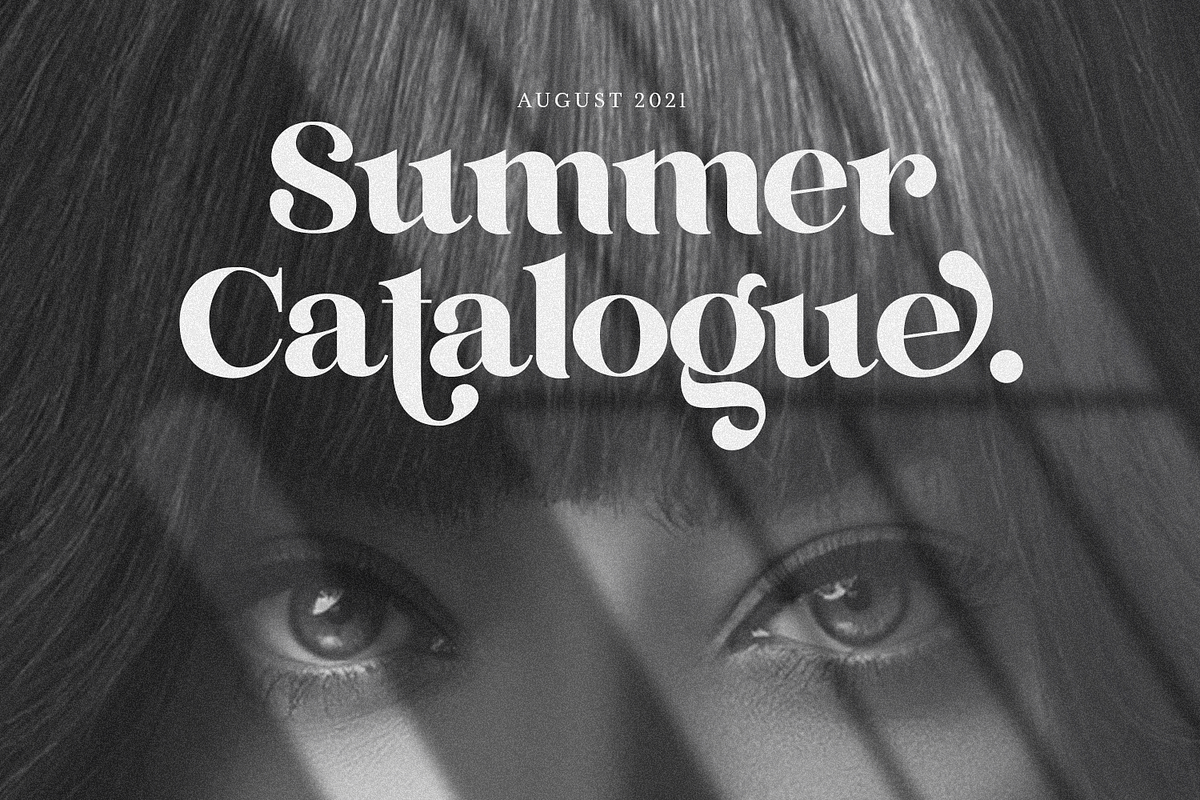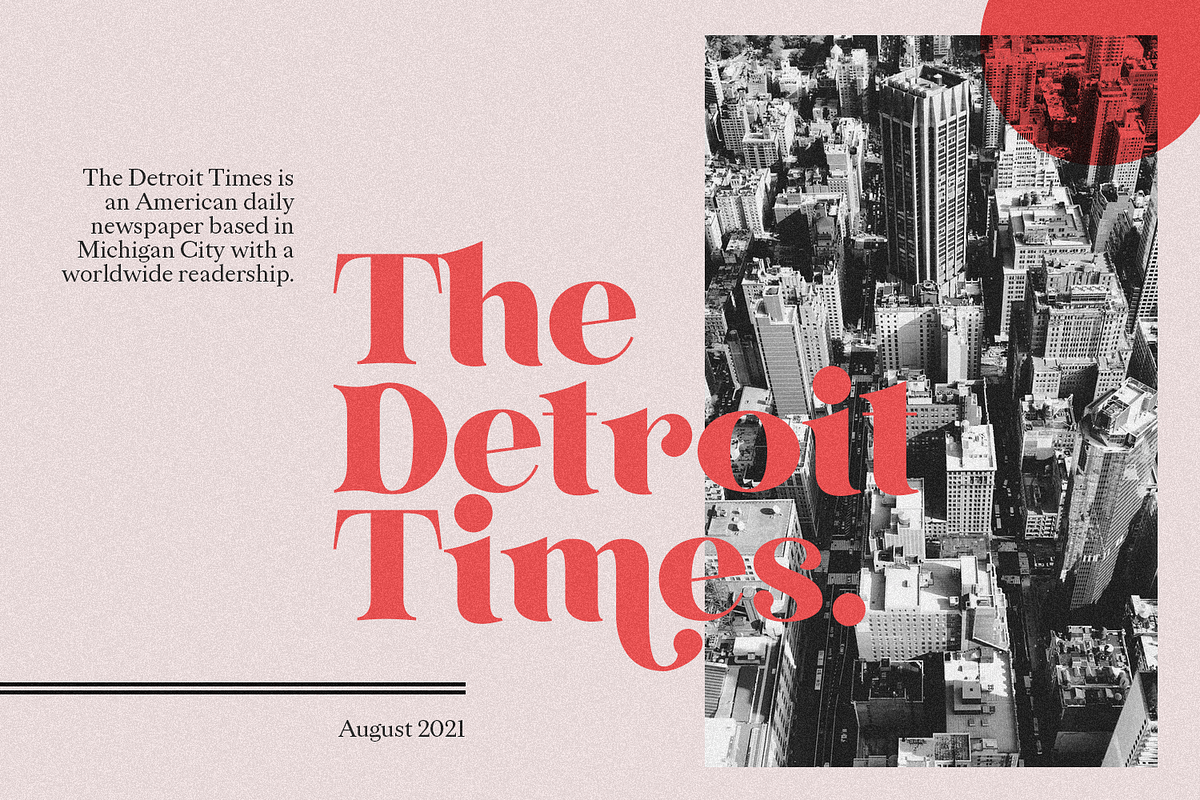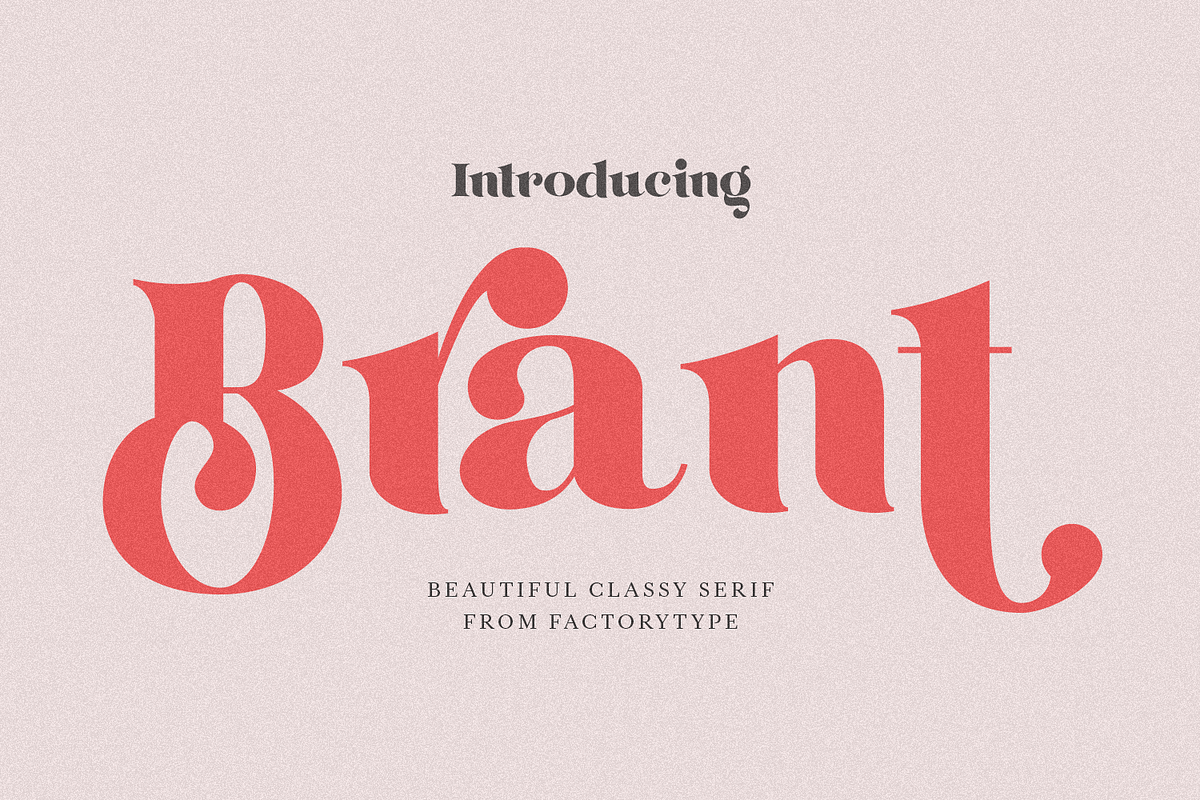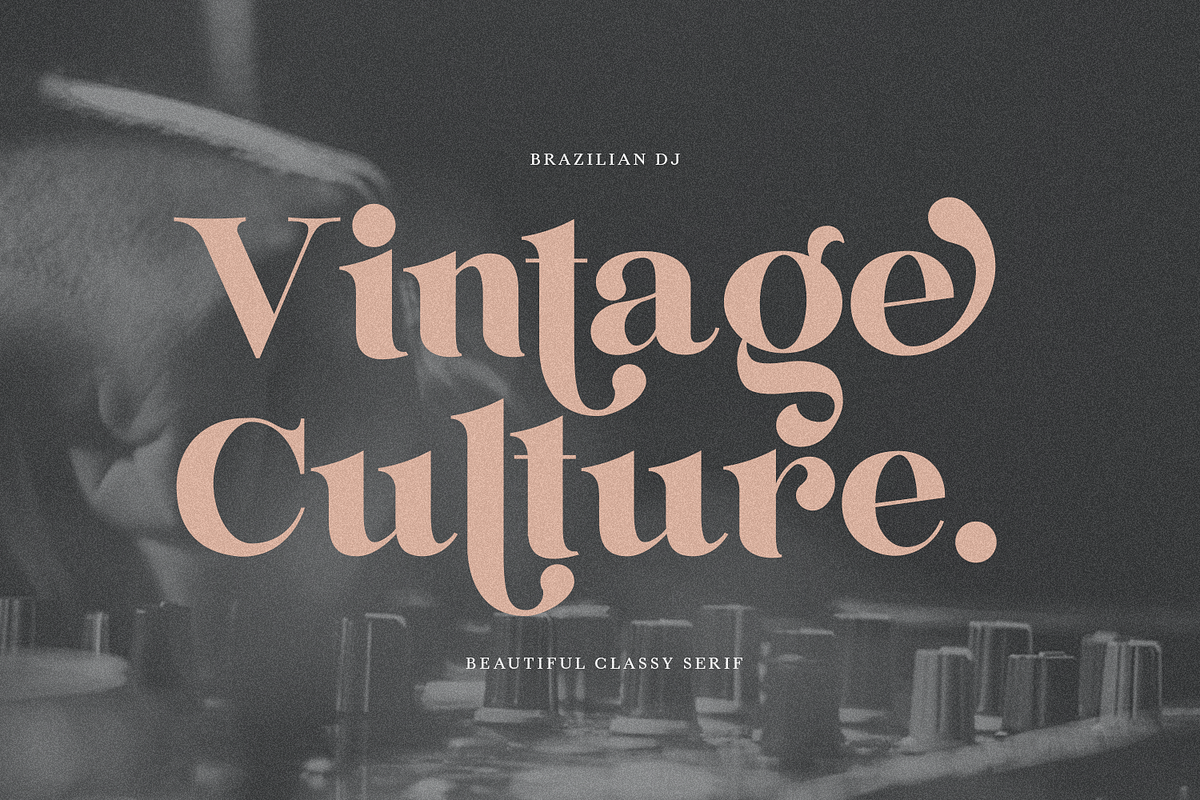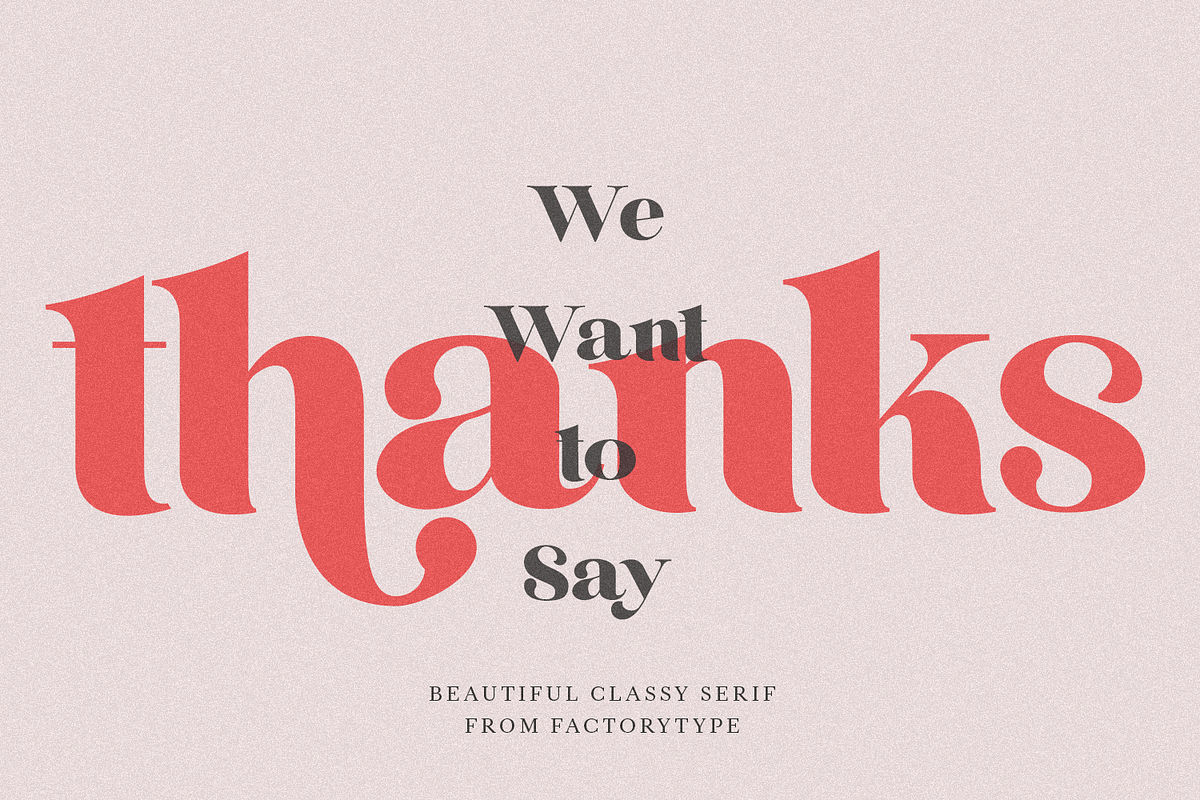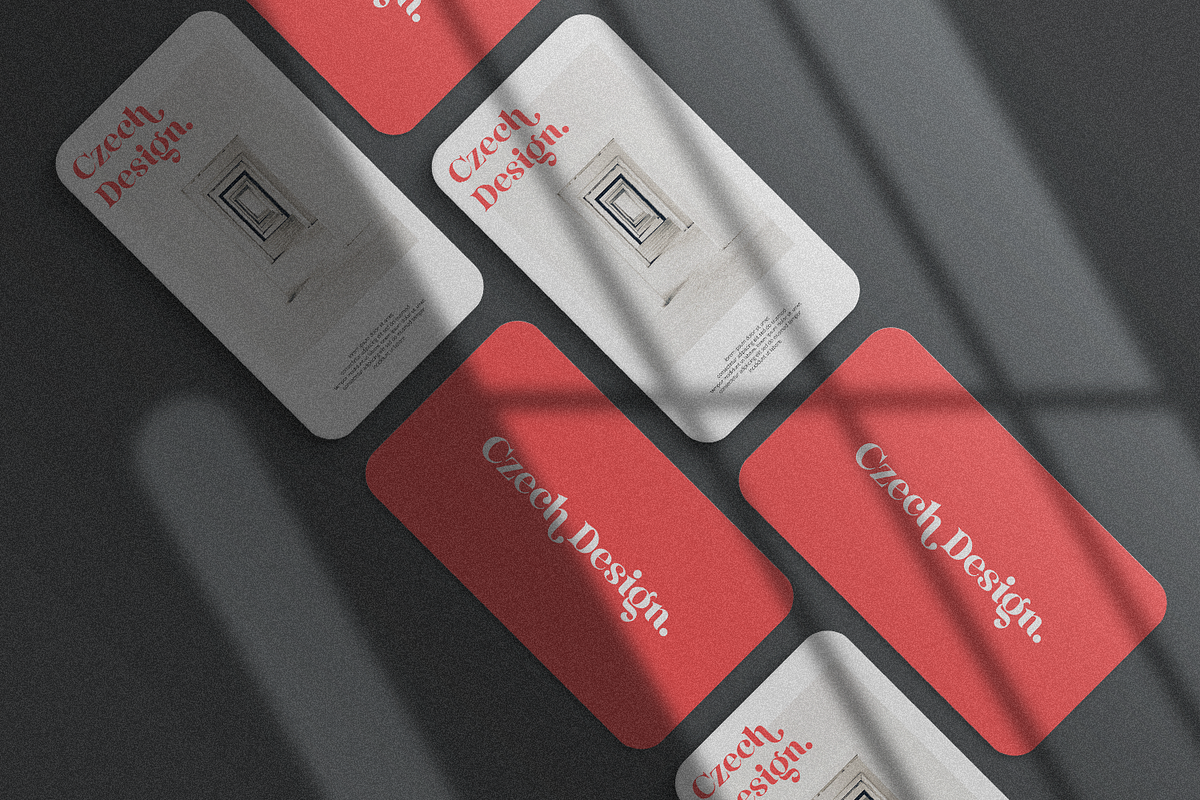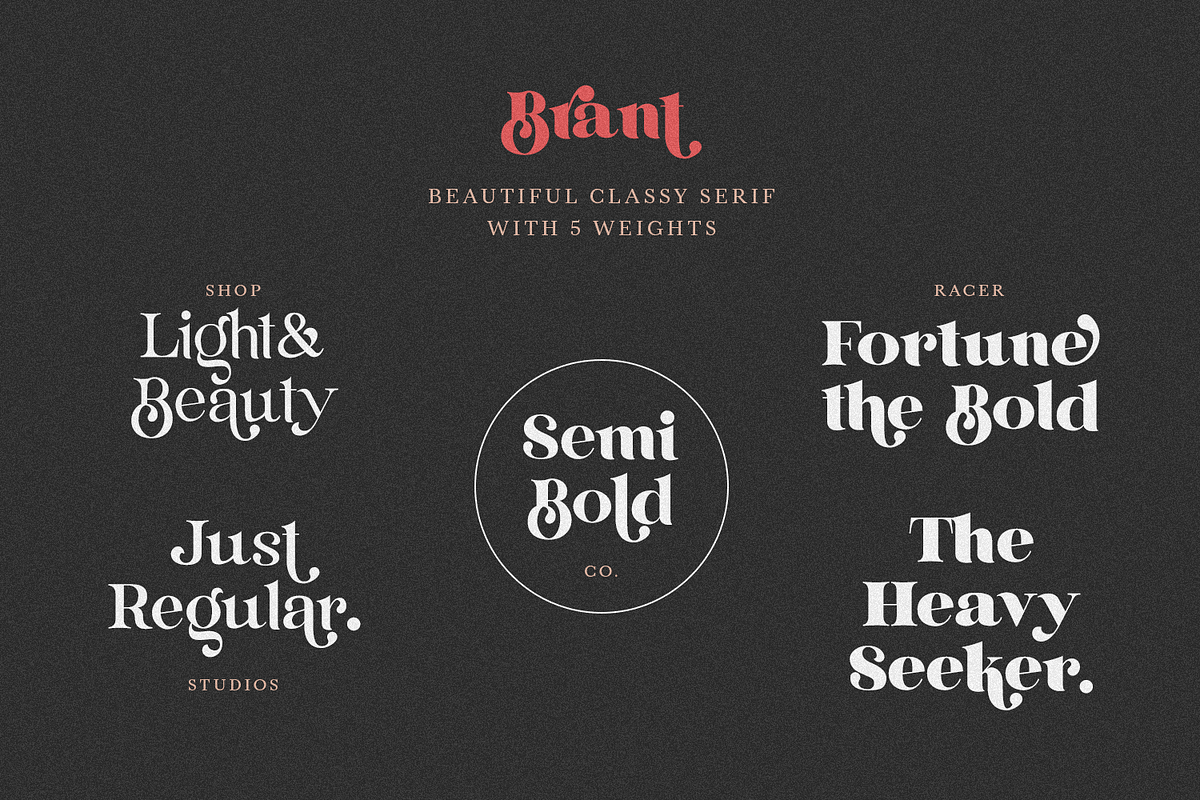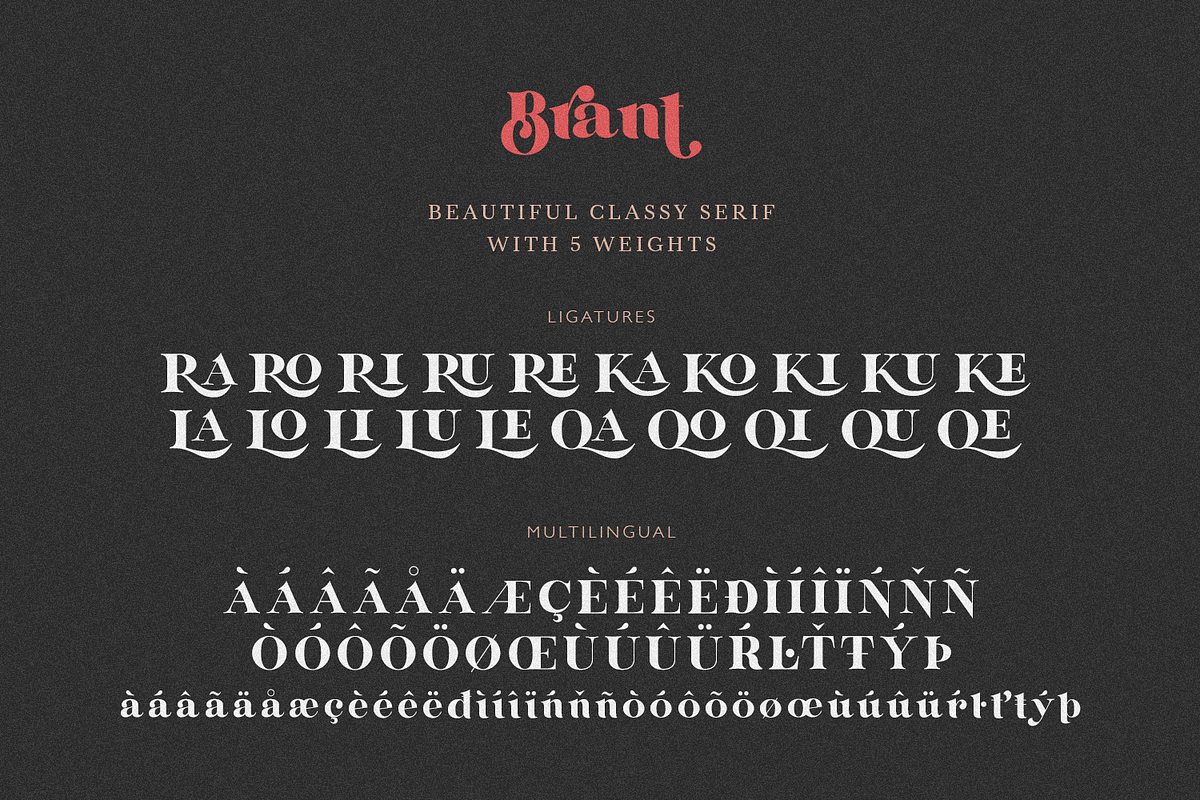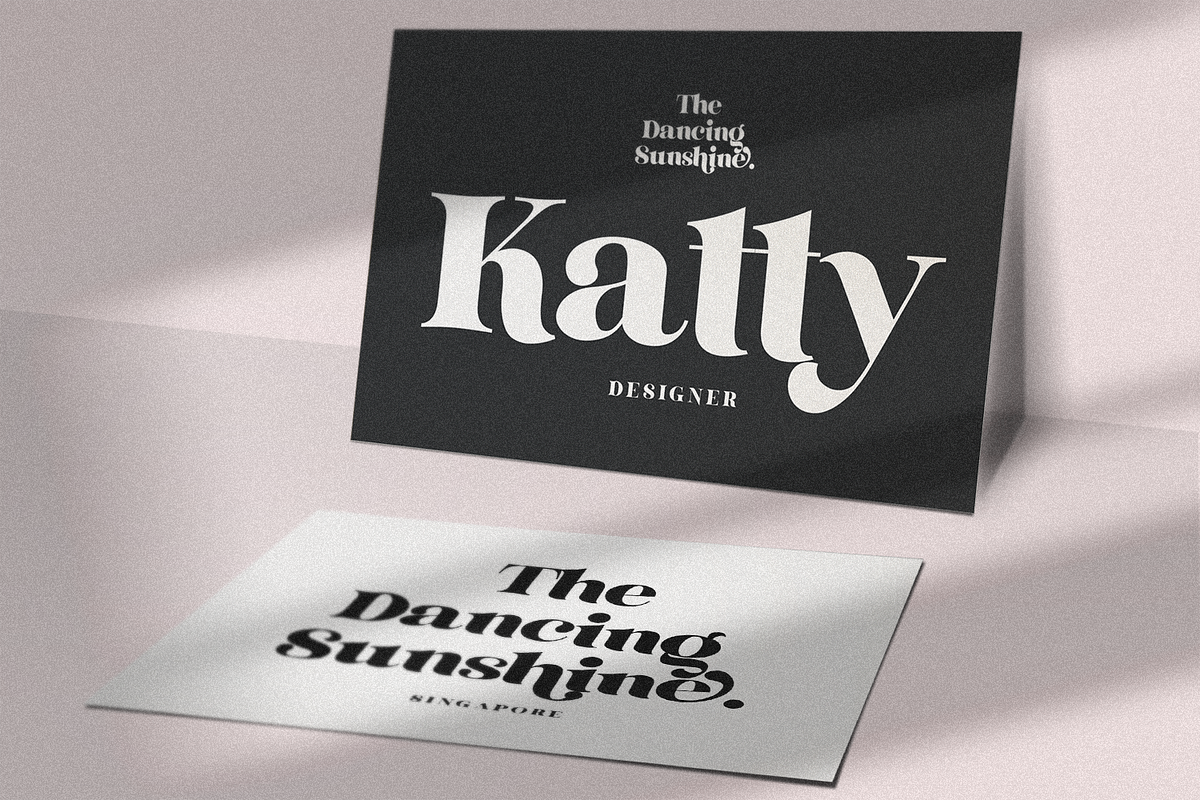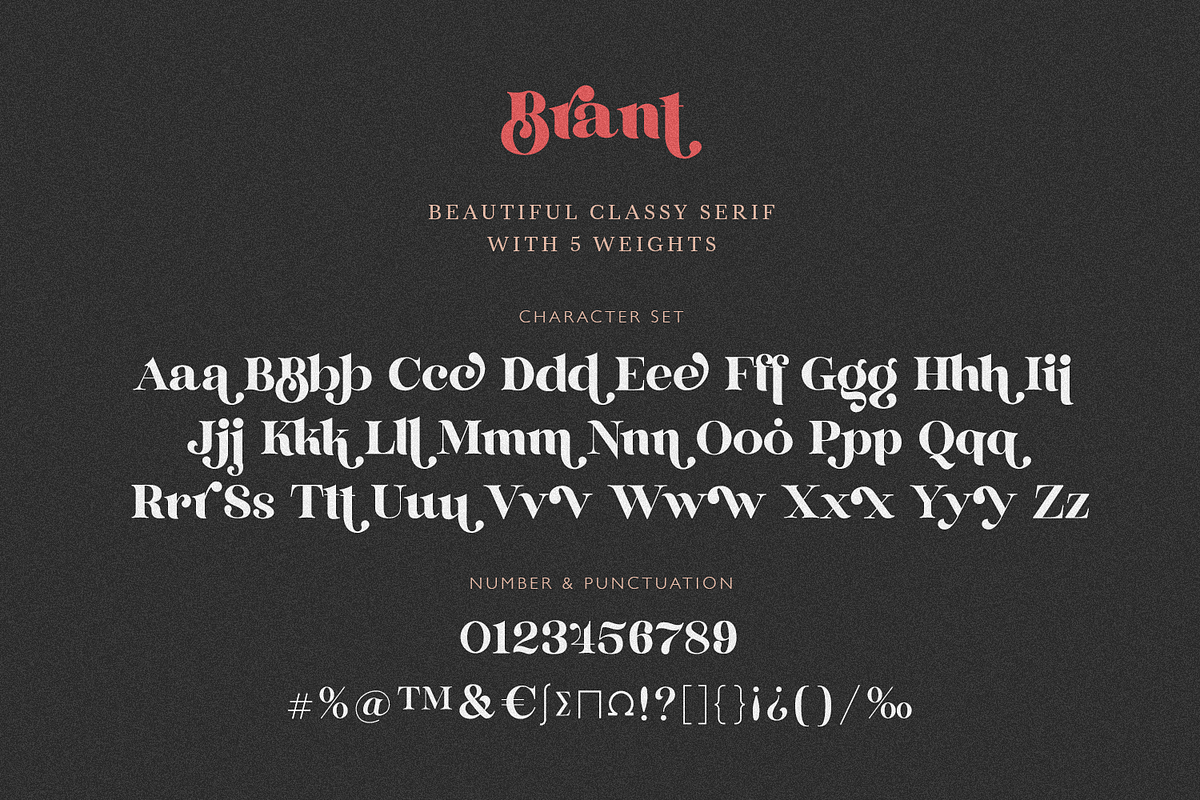
Brant
Introducing BRANT - Designed for logo and brand design, BRANT has a modern classic serif style. In spite of its curvy appearance, it exudes an air of affluence and sophistication. The different weights provide a variety of options for determining the best typographic color. Whatever your imagination can dream up, the Ligature and Alternate fonts are sure to come in handy!
- 5 Weights (Light, Regular, Semibold, Bold, Black)
- Stylistic Alternates & Ligatures
- Multilingual Support for ä ö ü Ä Ö Ü ...